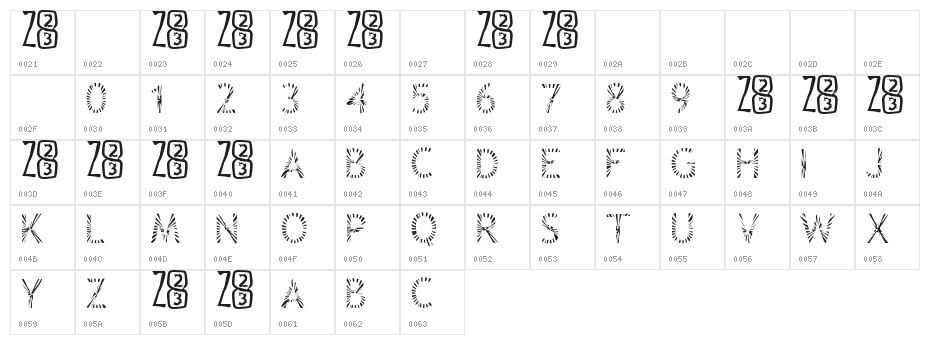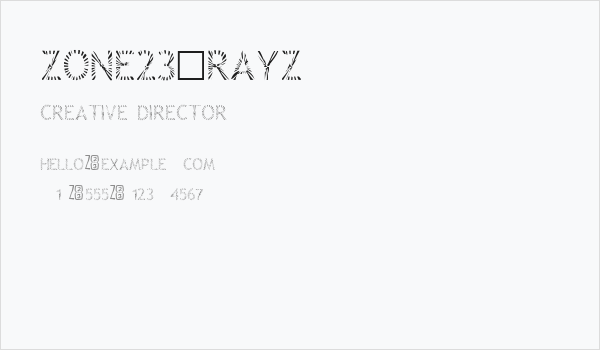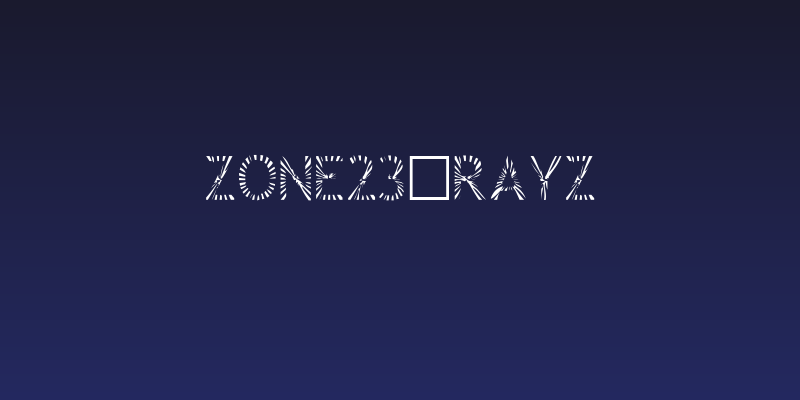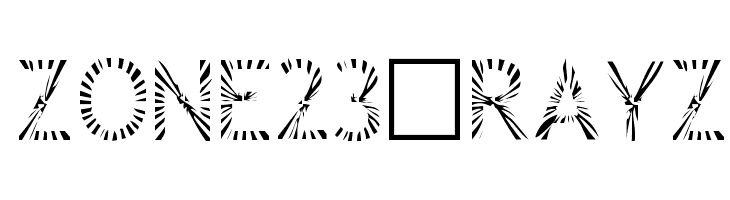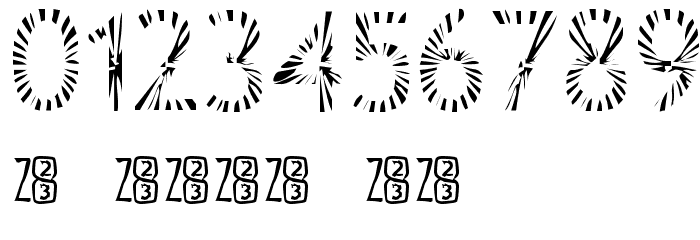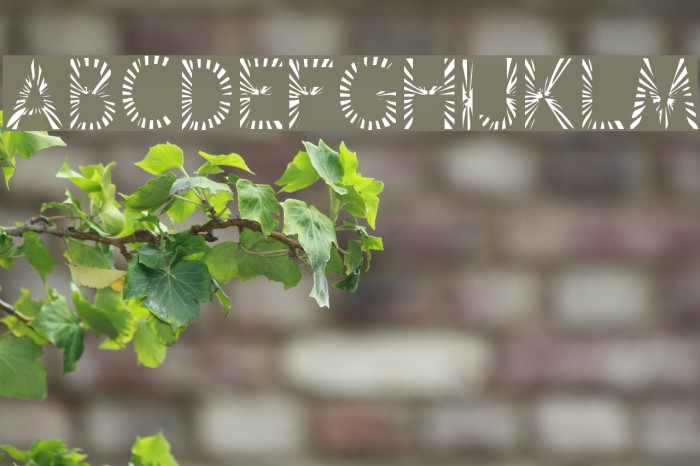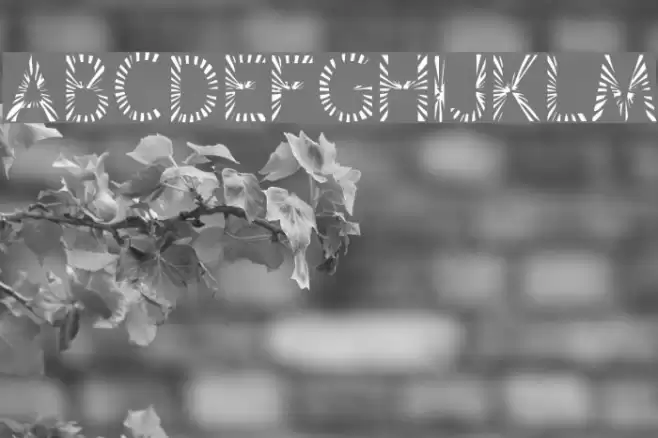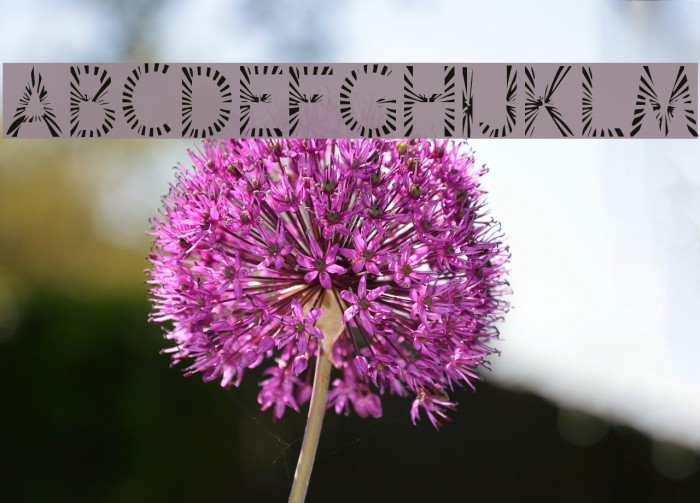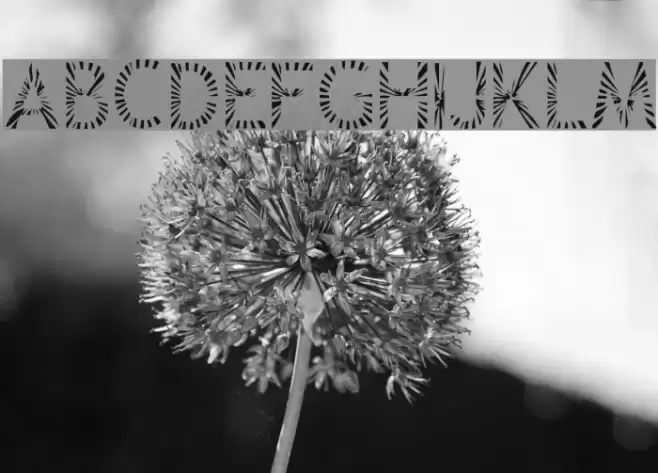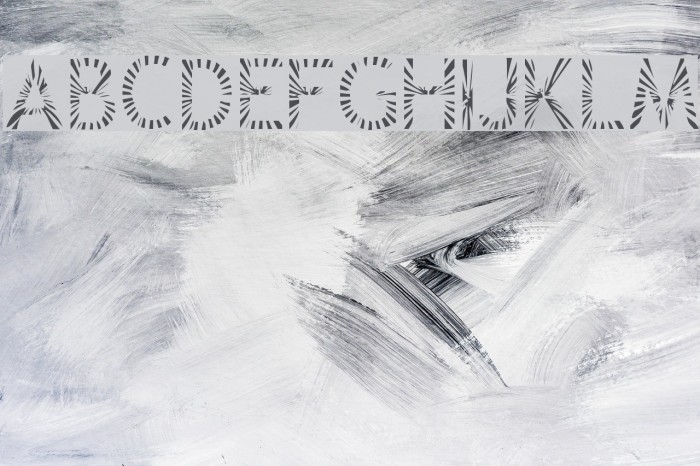
Zone23_Rayz Font
Zone23_Rayz Description
This font features a unique and dynamic design with a burst of lines radiating from the center of each character, creating a sense of movement and energy. The characters are constructed with a series of short, bold strokes that form the outlines, giving it a fragmented yet cohesive appearance. This style is particularly eye-catching and is reminiscent of a starburst or explosion effect, making it ideal for attention-grabbing designs. The font maintains a consistent width and height across all characters, ensuring uniformity while still delivering a striking visual impact.
| Proposed Projects | Ideal for posters, event flyers, album covers, and any design that requires a bold, energetic statement. |